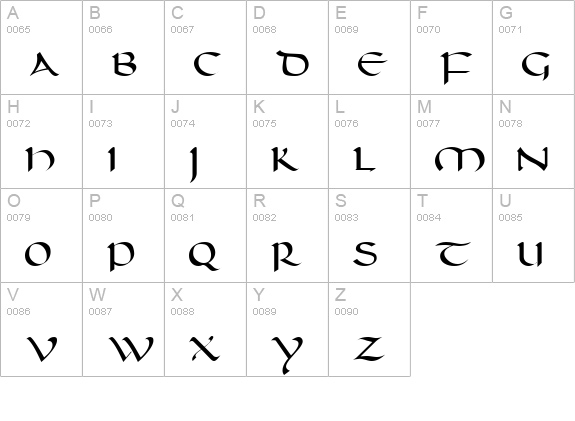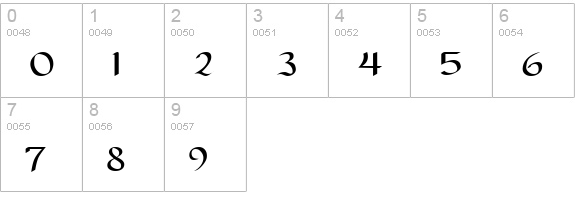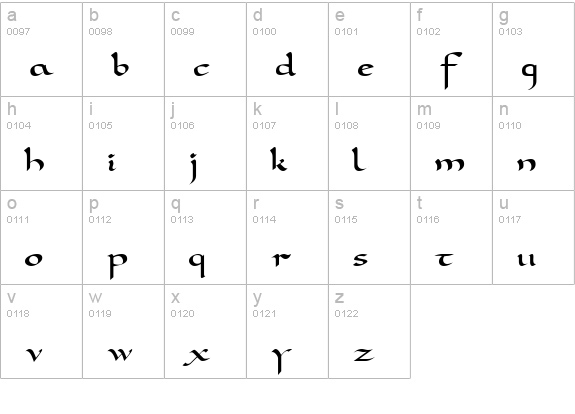
Carolus FG is a sophisticated and elegant serif font that exudes timeless charm and classic appeal. With its graceful curves and exquisite details, this font is perfect for adding a touch of sophistication to any project. The versatile nature of Carolus FG makes it suitable for a wide range of design applications, from branding to editorial design. What makes Carolus FG even more appealing is that it is available for free download at FontsMarket.com. This means that you can easily access this stunning font and use it in your projects without any cost. Whether you're a professional designer or a hobbyist looking to elevate your creations, Carolus FG is a valuable addition to your font collection. Download it today and unleash your creativity with this beautiful typeface.